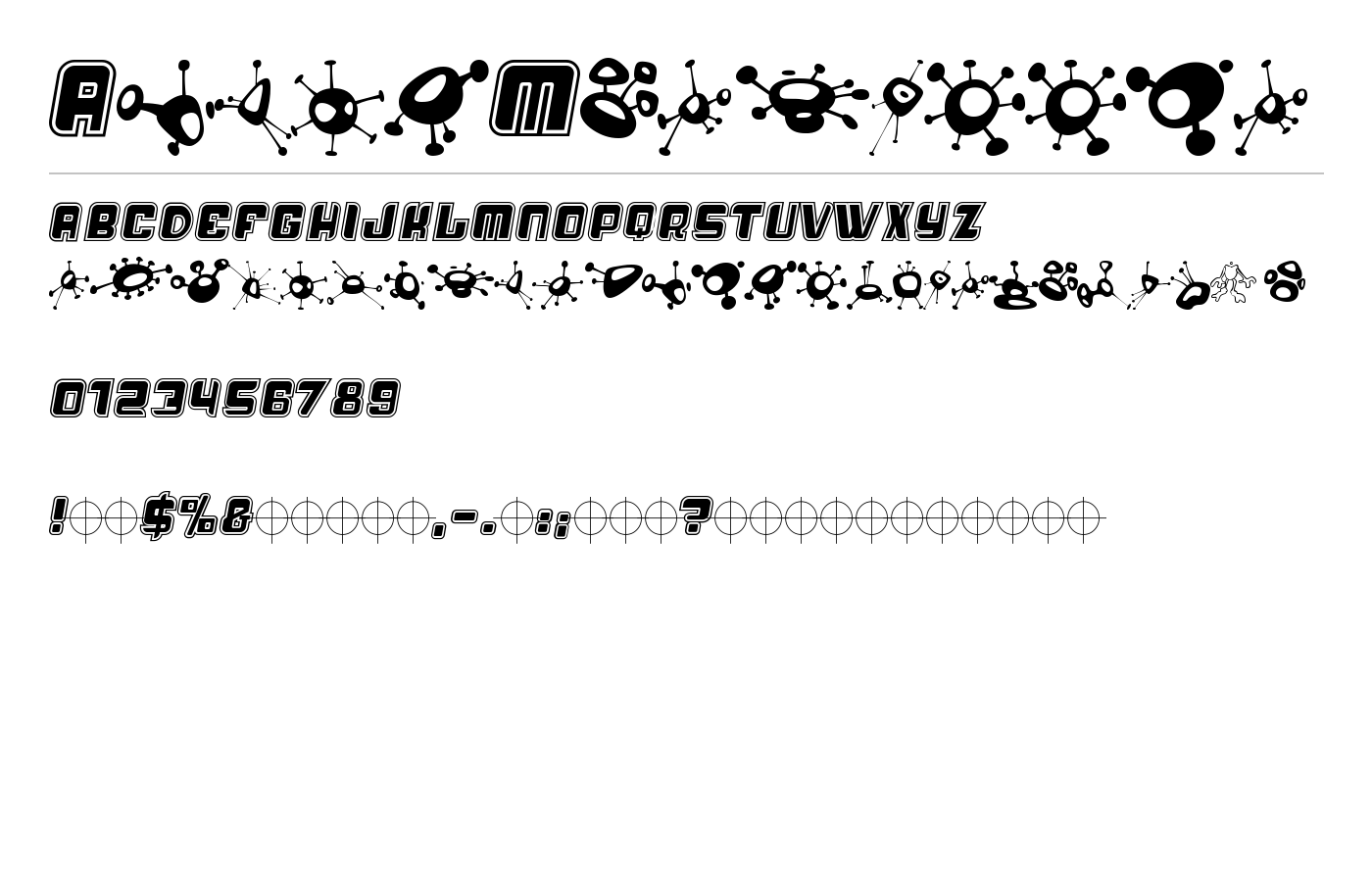
AlienMushrooms is a bold, playful display font featuring thick, rounded letterforms with a futuristic, sci-fi vibe. Its unique, slightly condensed characters are outlined and accented with quirky, abstract mushroom-like shapes, making it perfect for eye-catching designs that want to convey creativity and fun. This font works best in logos, posters, or themed projects where a strong, imaginative style is needed rather than for body text.
AlienMushrooms Font
About AlienMushrooms Font